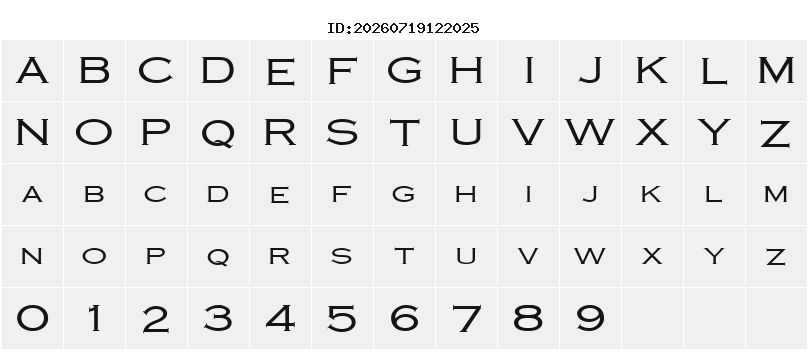
• Font Name: Cobalt Wide
• Full Font Name: Cobalt Wide Normal
About Cobalt Wide.ttf
Cobalt Wide.ttf is a modern, elegant sans-serif font designed for ultimate readability and visual harmony. Perfect for branding, headlines, web design, and print materials.